Brush script fonts for logos are powerful because they make a brand feel handmade before the viewer reads a single word. A good brush script can suggest speed, confidence, warmth, nostalgia, or creative energy in one quick glance. That is why these fonts still appear in apparel logos, coffee branding, food packaging, sports marks, barbershop identities, boutique labels, and creative studio wordmarks.
But brush lettering is also easy to misuse.
Some fonts look impressive in a large preview image, then become difficult to read once they are placed inside a real logo system. Heavy texture can clog. Thin stroke endings can disappear. Long brand names can turn into one dense ribbon of letters. The best brush script fonts for logos need more than personality. They need rhythm, spacing, readability, and enough control to work across packaging, websites, labels, social profiles, and print materials.
In this guide, I’m looking at 13 bold brush script fonts through a branding lens: expressive hand-painted styles, casual marker fonts, vintage brush lettering, sporty scripts, indie-inspired type, and softer boutique options. The goal is not just to find fonts that look good in a preview, but to find brush fonts that can actually support a memorable logo.
- Best bold all-rounder: Monaleya
- Best vintage texture: Originale Brush
- Best polished lifestyle option: Redmond Fashion
- Best indie option: Shoegaze
- Best sporty option: Baseliner
How I Picked These
I compared these brush script fonts by wordmark readability, stroke texture, spacing, small-size performance, visual energy, pairing flexibility, one-color usability, and how well each style can keep its handmade character across logos, apparel, packaging, labels, social profiles, signage, and web headers.
1. Monaleya
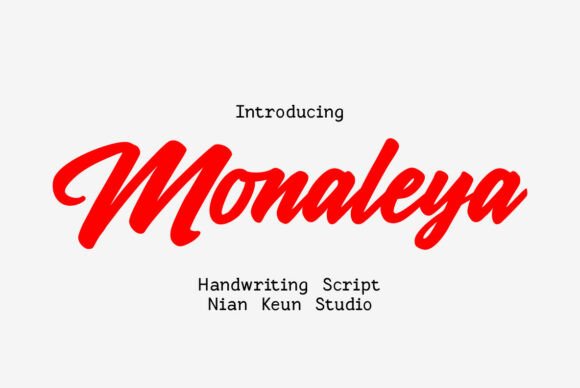
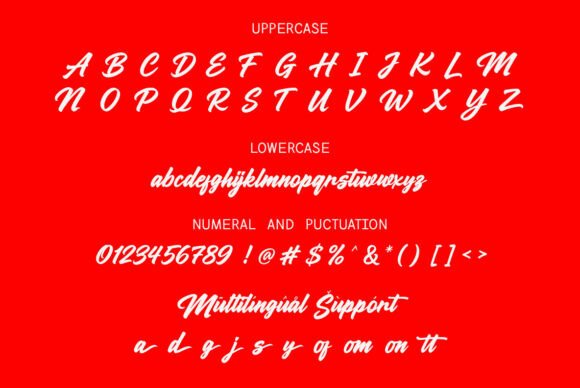
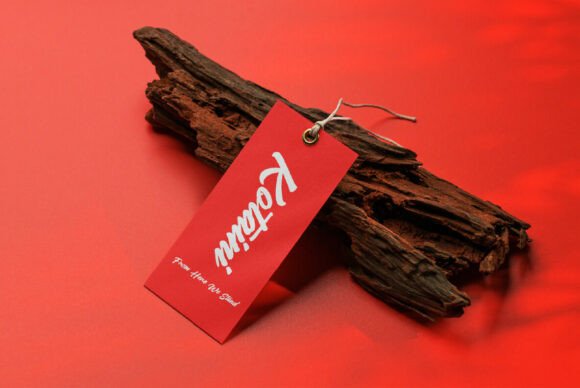
Monaleya has that immediate brush-script confidence: thick strokes, fast movement, and a strong handwritten rhythm. Visually, it feels bold without looking too polished, which is often the sweet spot for apparel, creative brands, and expressive logo concepts.
What I like about Monaleya is the momentum in the lettering. The curves feel like they were drawn with intention rather than assembled from generic script shapes. That gives the wordmark a more human tone.
From a branding perspective, I would keep Monaleya focused on the main name. It has enough personality already, so pairing it with a calm sans serif for a tagline or small details would help the logo feel more balanced.
The limitation is the same one I watch for with many bold brush scripts: it needs space. If the brand name is long, the connected strokes could become visually heavy.
2. Originale Brush
Originale Brush leans into a textured, vintage brush style. It has more of a hand-painted sign feeling, the kind of lettering that can make a coffee brand, craft label, barbershop, or heritage-inspired identity feel more grounded.
The texture is the main character here. It gives the font a worn, tactile quality, but it also means I would be careful with tiny applications. Some rough brush details look fantastic on a poster or package front, then lose clarity on a small label or social profile image.
Originale Brush feels strongest when the brand wants a rugged or nostalgic voice. It is not the font I would reach for when a logo needs to feel minimal or luxury-clean. It has a little dirt under the nails, in a good way.
Use it for the wordmark, then let the rest of the identity stay plain and structured.
3. Redmond Fashion
Redmond Fashion feels cleaner and more modern than many rough brush scripts. It still has brush movement, but the strokes are less aggressive, which gives it a more polished lifestyle-brand mood.
I can imagine it in fashion, beauty, social content branding, or a small boutique identity where the logo needs to feel stylish without becoming overly delicate. The letterforms have a current, slightly editorial quality.
One thing I often notice when browsing font collections is that some brush fonts try to be expressive and elegant at the same time, but end up looking confused. Redmond Fashion feels more focused. It has style, but it does not bury the wordmark under too much texture.
I would still test it at different sizes before committing. Brush scripts with thin exits and sweeping forms can lose some clarity when scaled down.
4. Vionettay
Vionettay has a softer, more refined brush personality. It mixes modern brush lettering with a slightly vintage elegance, which makes it useful for boutique branding, beauty packaging, feminine logos, or lifestyle identities with a warmer tone.
The character of the lettering suggests confidence, but not loudness. That distinction matters. Some brush script fonts for logos shout immediately. Vionettay feels more composed.
How do I make a brush script logo more readable?
Keep the wordmark short, avoid heavy texture, and test the logo at small sizes before using it in a real brand system. Thin endings, rough edges, tight spacing, and oversized swashes can all reduce readability. A practical solution is to create two versions: a full brush script wordmark for large uses and a simpler mark or monogram for tiny placements like favicons, social profile images, labels, and stamps.